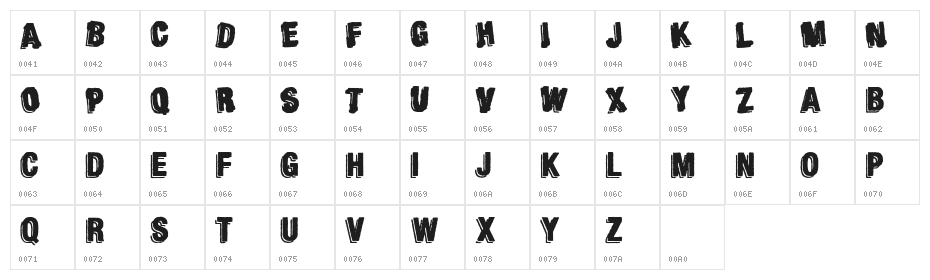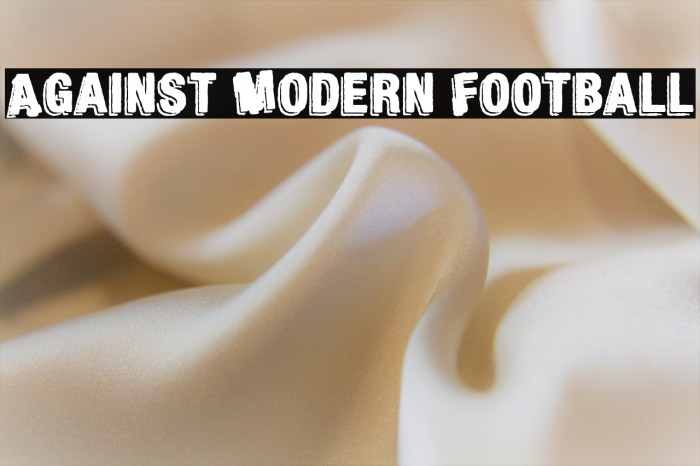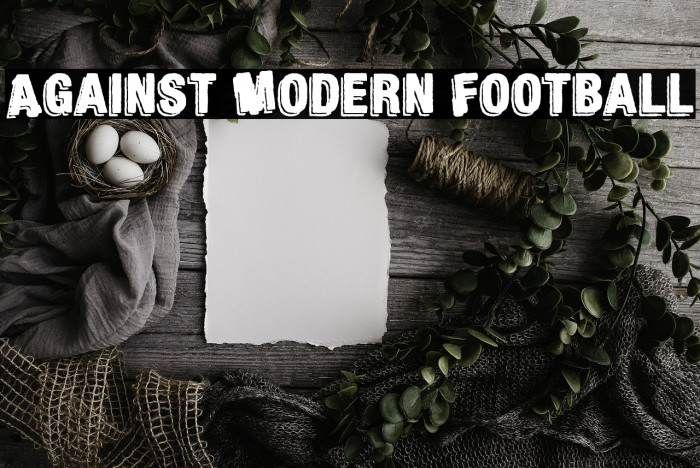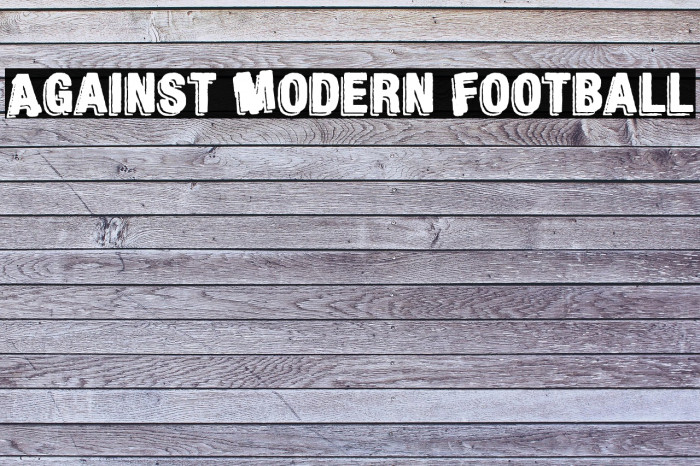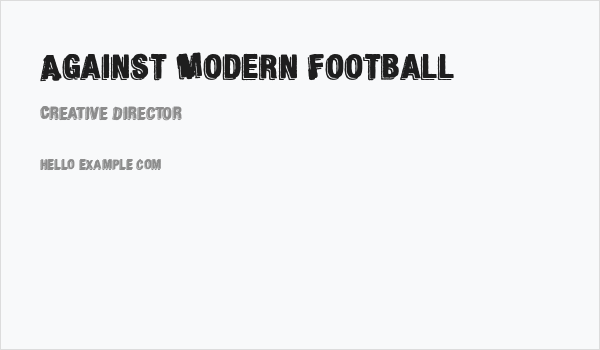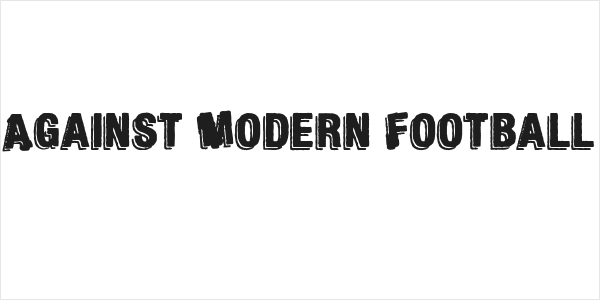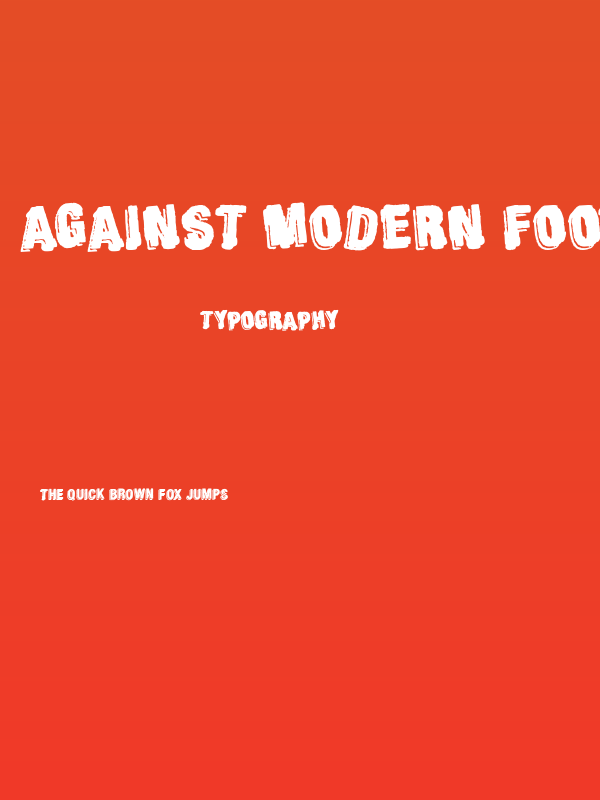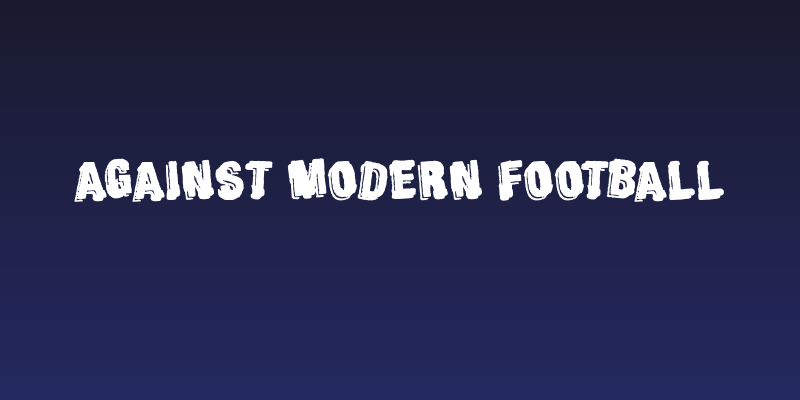
Against Modern Football Font
| Kategorien | Messy |
| Gesamtstil | Rugged, Rebellious, Bold |
| Anwendungsfall | Headlines, Posters, Branding |
| Vorgeschlagene Projekte | Ideal for posters, album covers, sports branding, and any project needing a bold, rebellious look. |